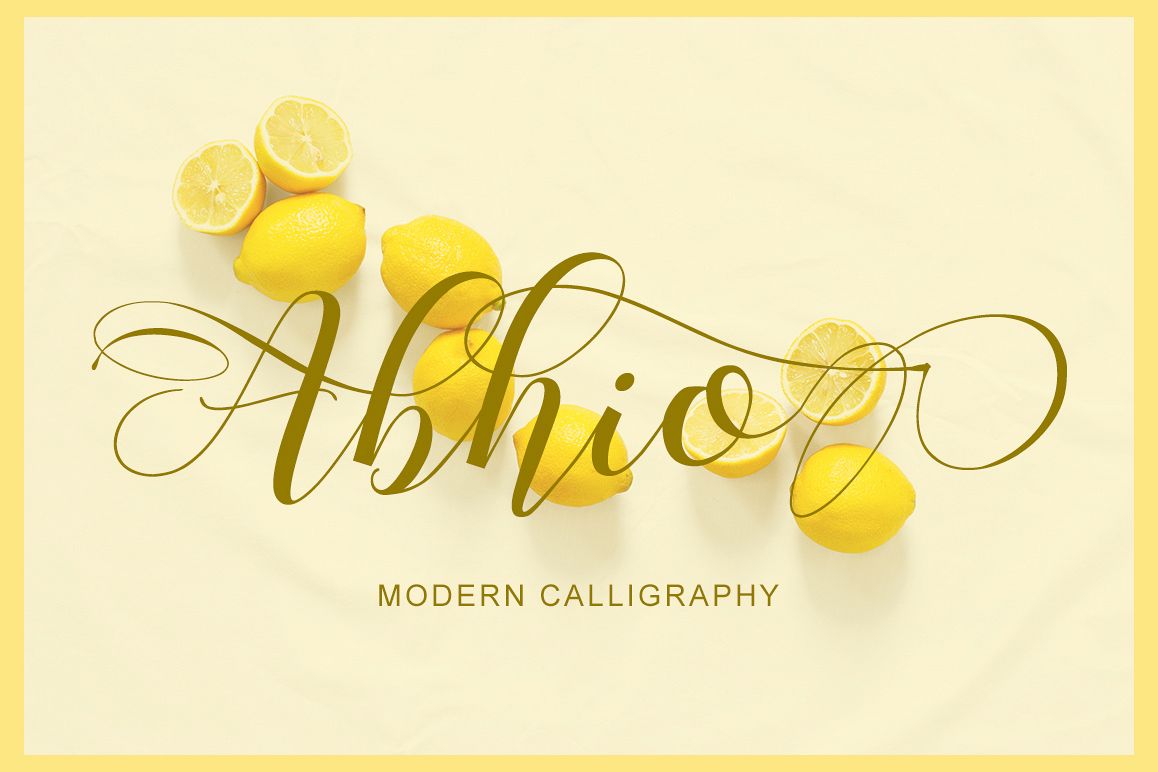
Abhio
Abhio-Regular
Abhio is beautiful script font. With modern script style this font will perfect for many different project ex: quotes, blog header, poster, wedding, branding, logo, fashion, apparel, letter, invitation, stationery, etc.